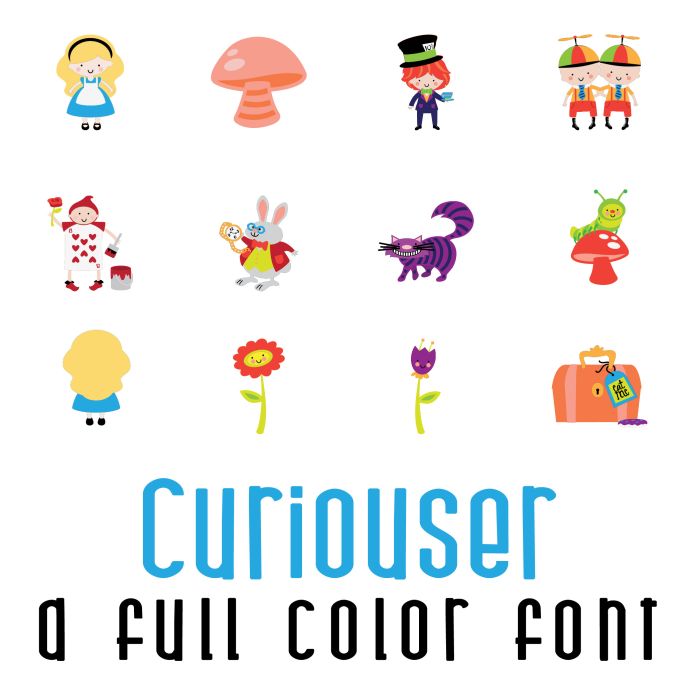
This fun full color font features 26 adorable characters from a magical wonderland, perfect for cards, crafts, gifts, planner stickers, scrap book pages, classrooms and more!